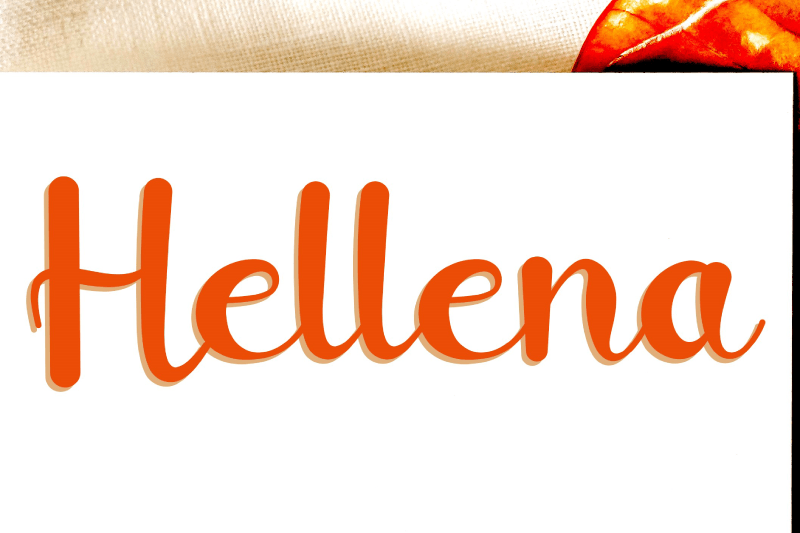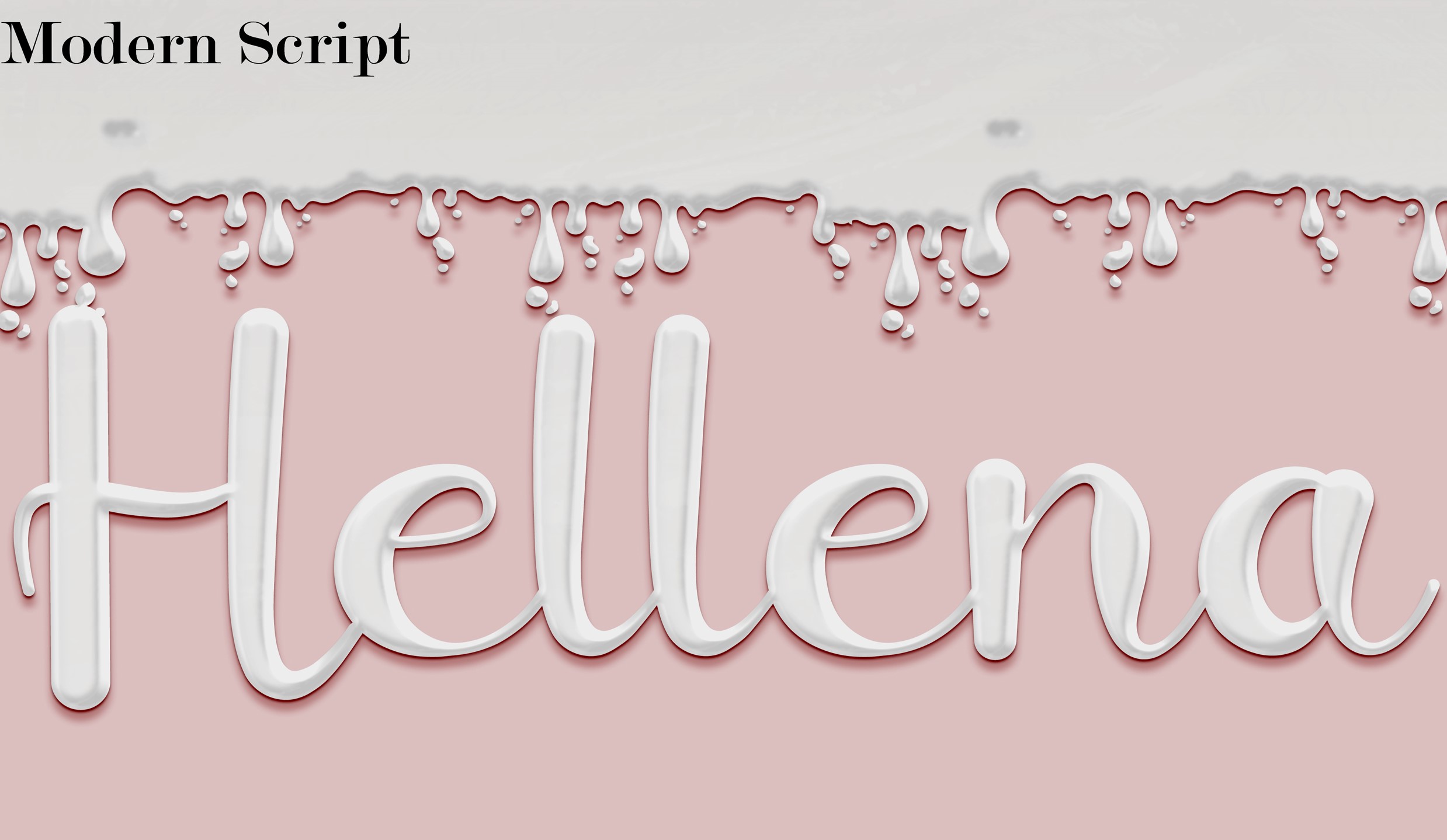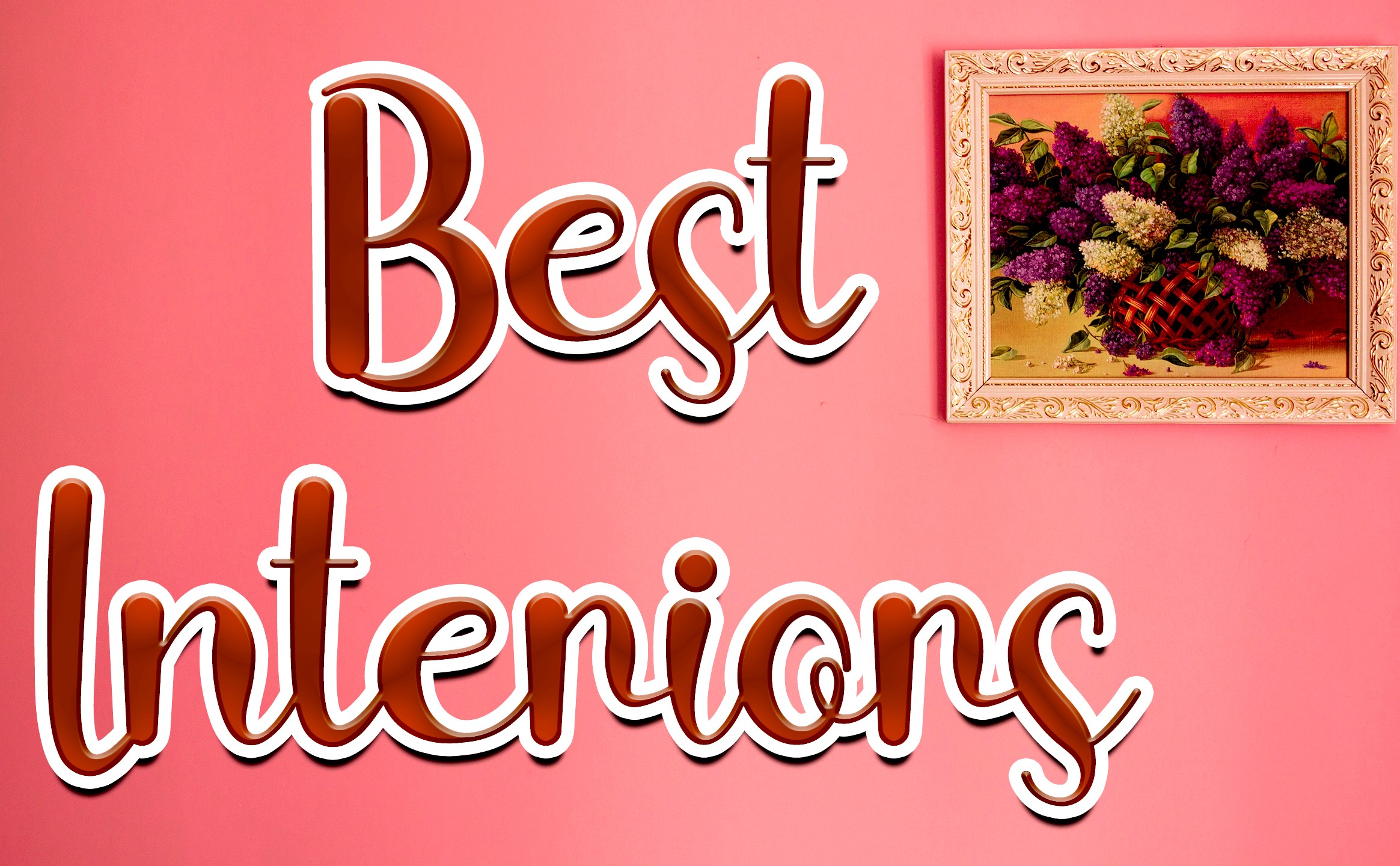
Hellena Script Font
This is a beautiful handwritten font with a unique feel and a stunning impact. It will add a luxury spark to any design project that you wish to create!